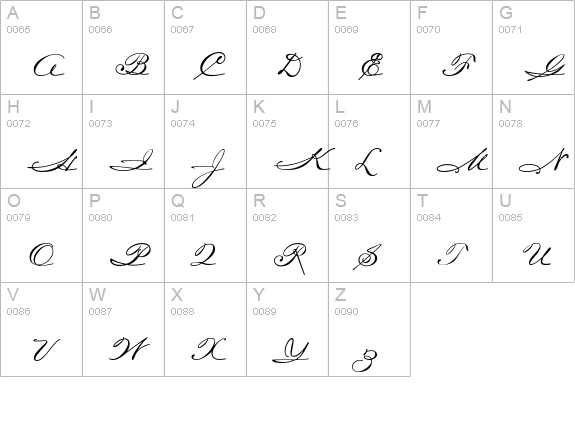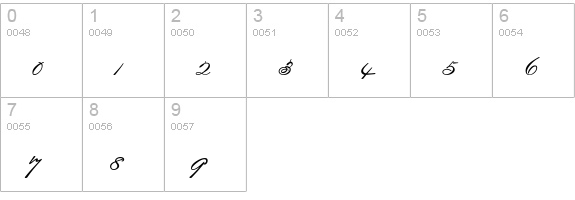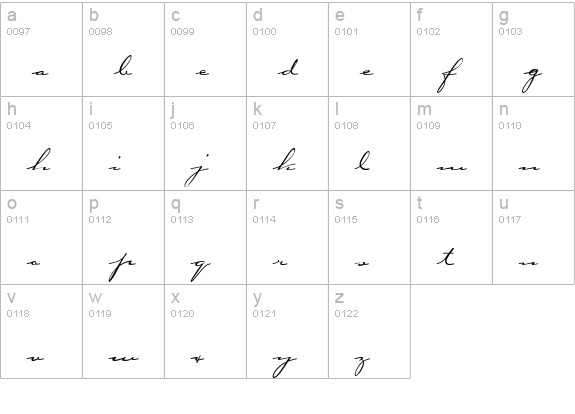
Carpenter ICG Font Details
Carpenter ICG font is a versatile and elegant typeface that exudes a timeless charm and sophistication. With its clean lines and classic proportions, this font is perfect for a wide range of design projects, from branding to editorial design. The Carpenter ICG font is meticulously crafted to ensure readability and visual appeal, making it a popular choice among designers and creatives alike. What sets Carpenter ICG font apart is its seamless blend of modern aesthetics with a touch of vintage elegance. Whether you're looking to add a touch of sophistication to your next project or create a timeless design piece, Carpenter ICG font is sure to impress. Best of all, Carpenter ICG font is completely free to download at FontsMarket.com, so you can easily access this stunning typeface for your design needs. Don't miss out on the opportunity to elevate your projects with the timeless beauty of Carpenter ICG font.